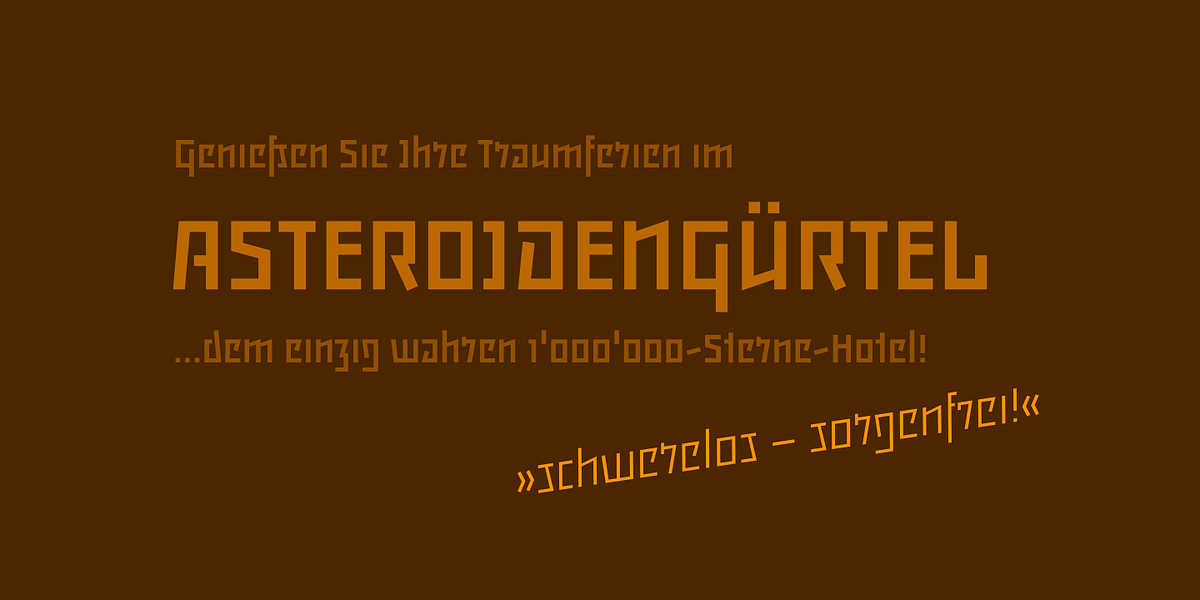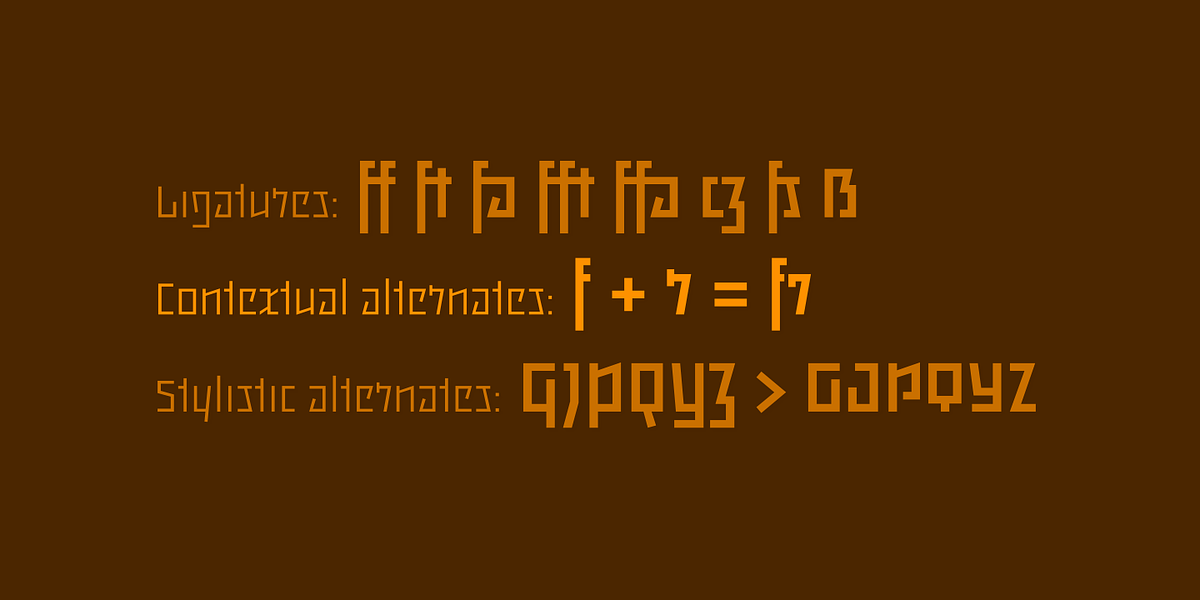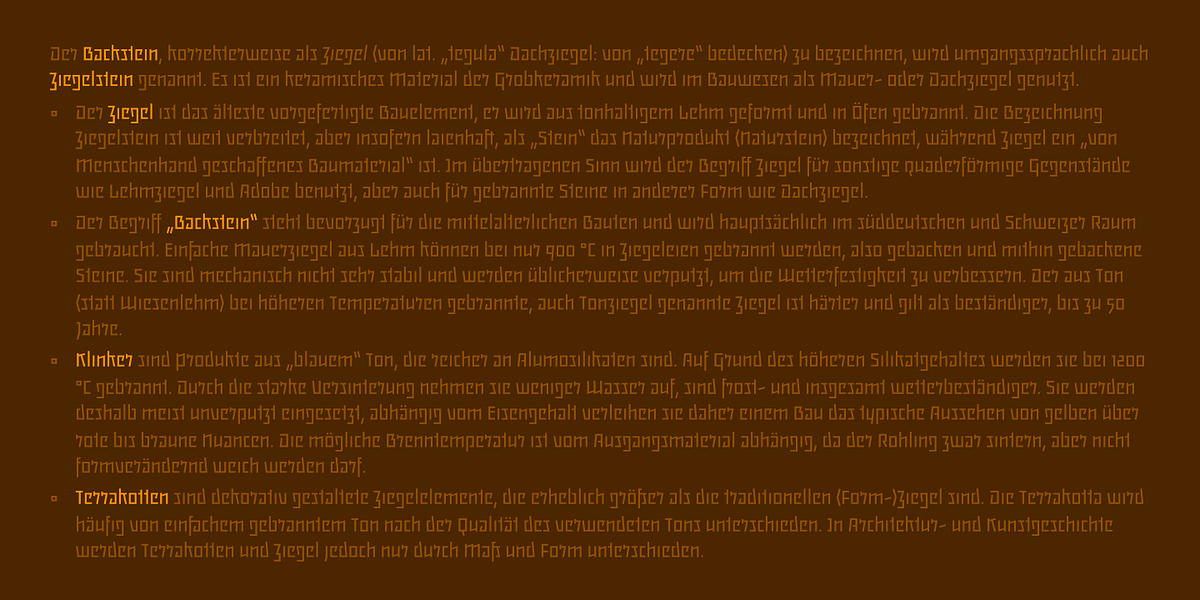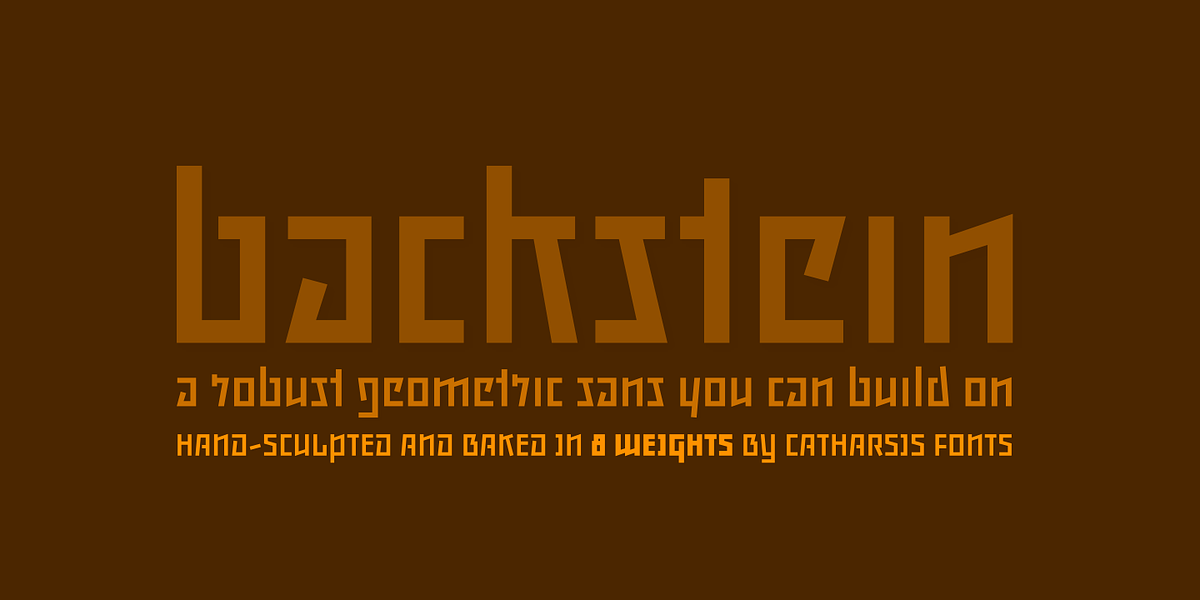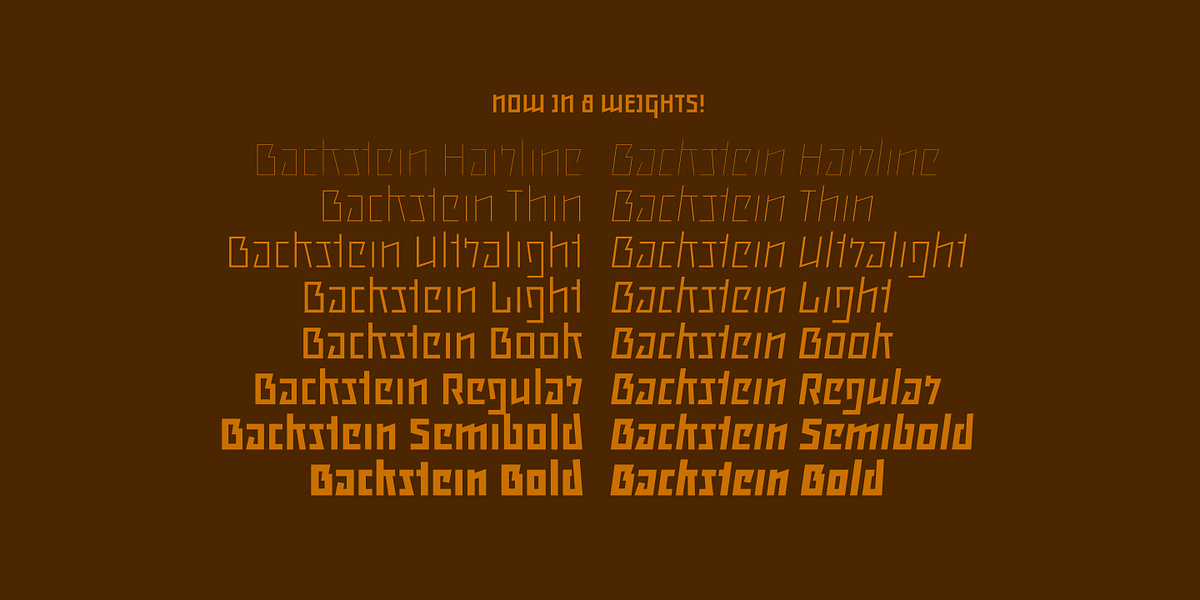
Backstein
Backstein is a geometric sans-serif font inspired by the lettering found in Berlin's old subway stations. Its design emphasizes strong horizontal lines and a square shape, creating a solid and masculine feel. The font comes in a range of eight weights, from Hairline to Bold, making it versatile for various display and branding applications.